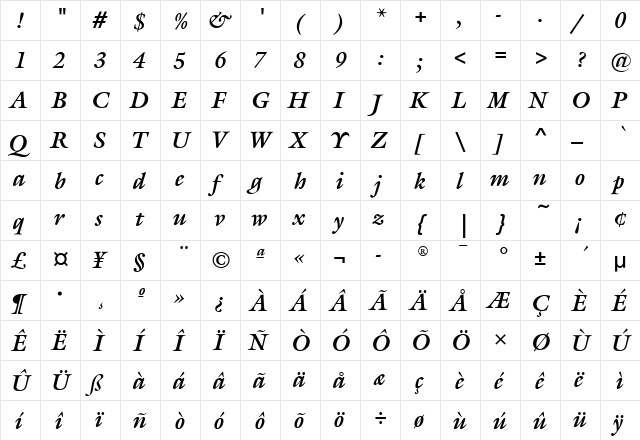
GalliardBldITC Italic
Design Context for GalliardBldITC Typeface
GalliardBldITC is a composed and adaptable typeface that performs quietly and consistently across a wide range of design contexts. The dynamic lean of this cut emphasises speed and emphasis in any layout.